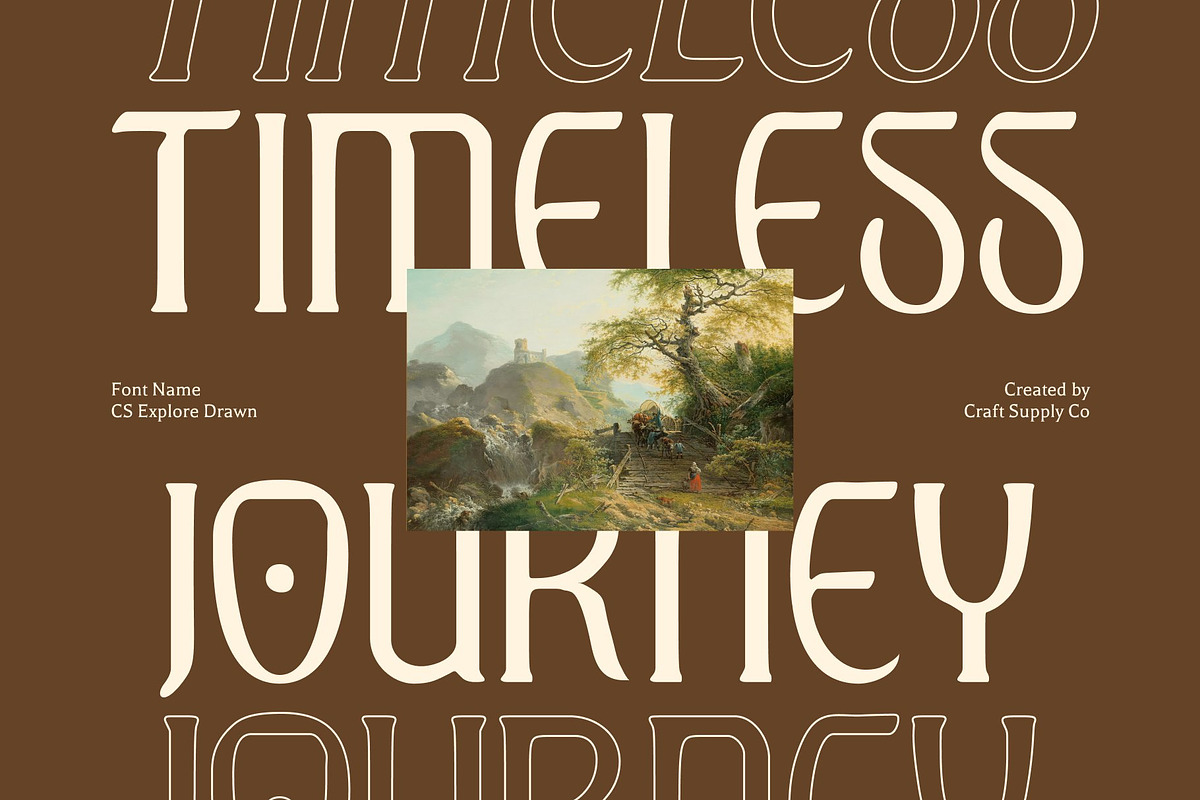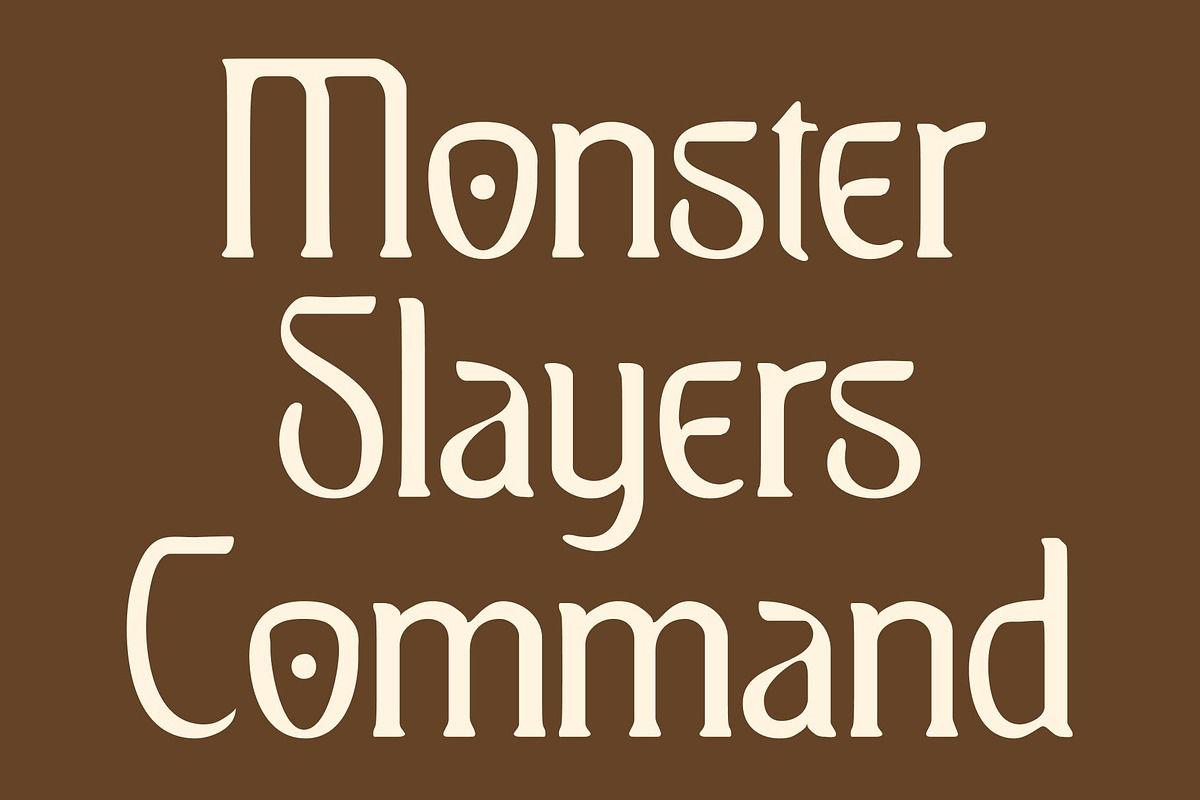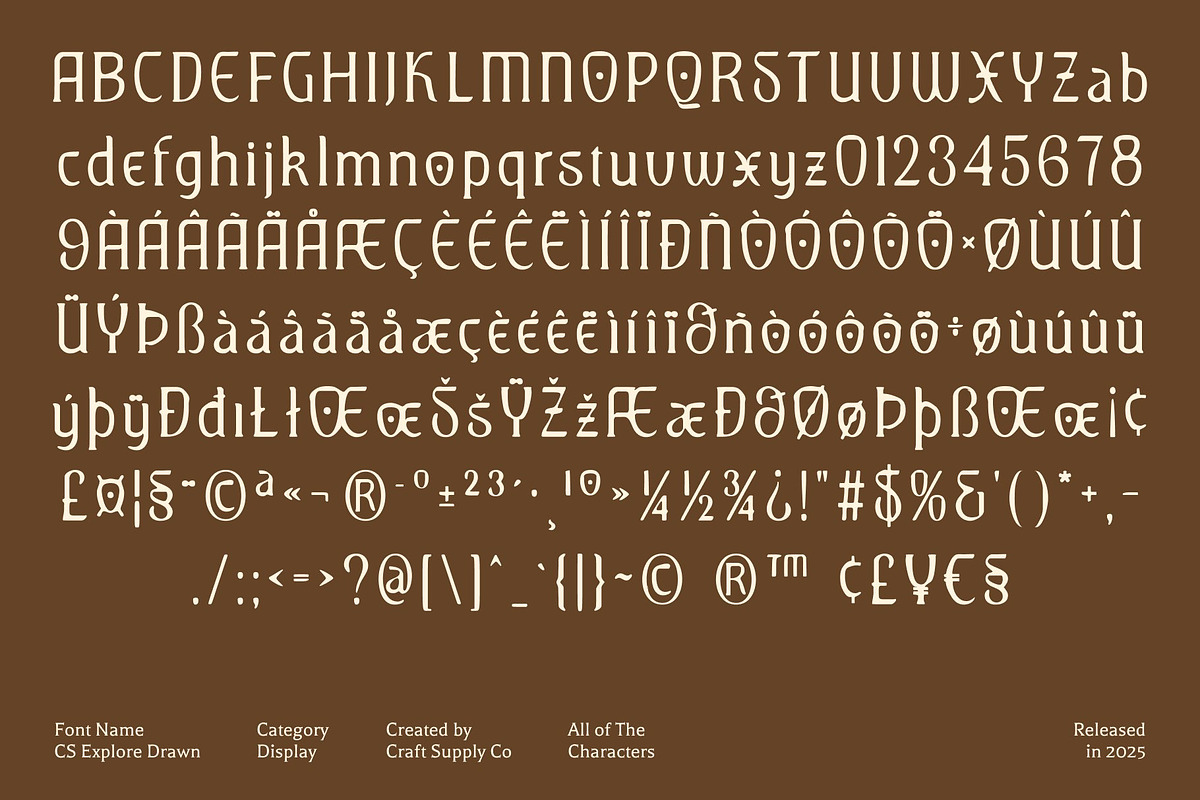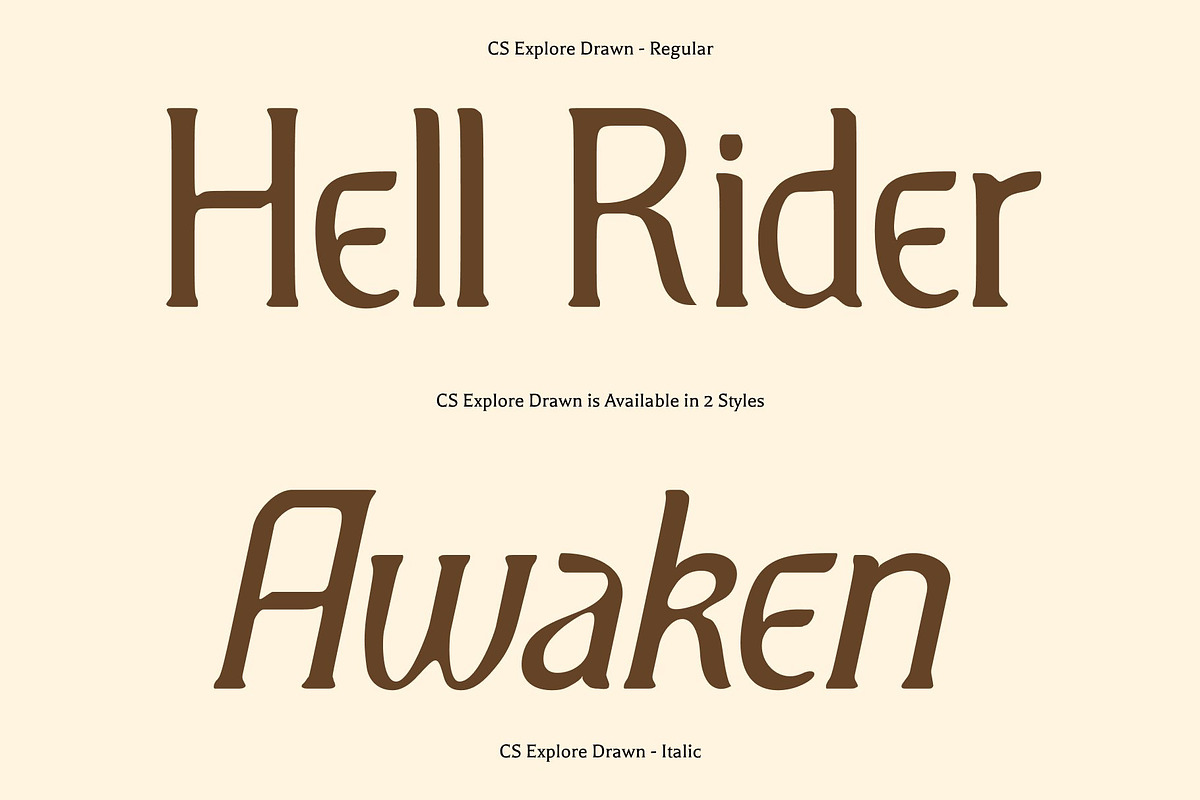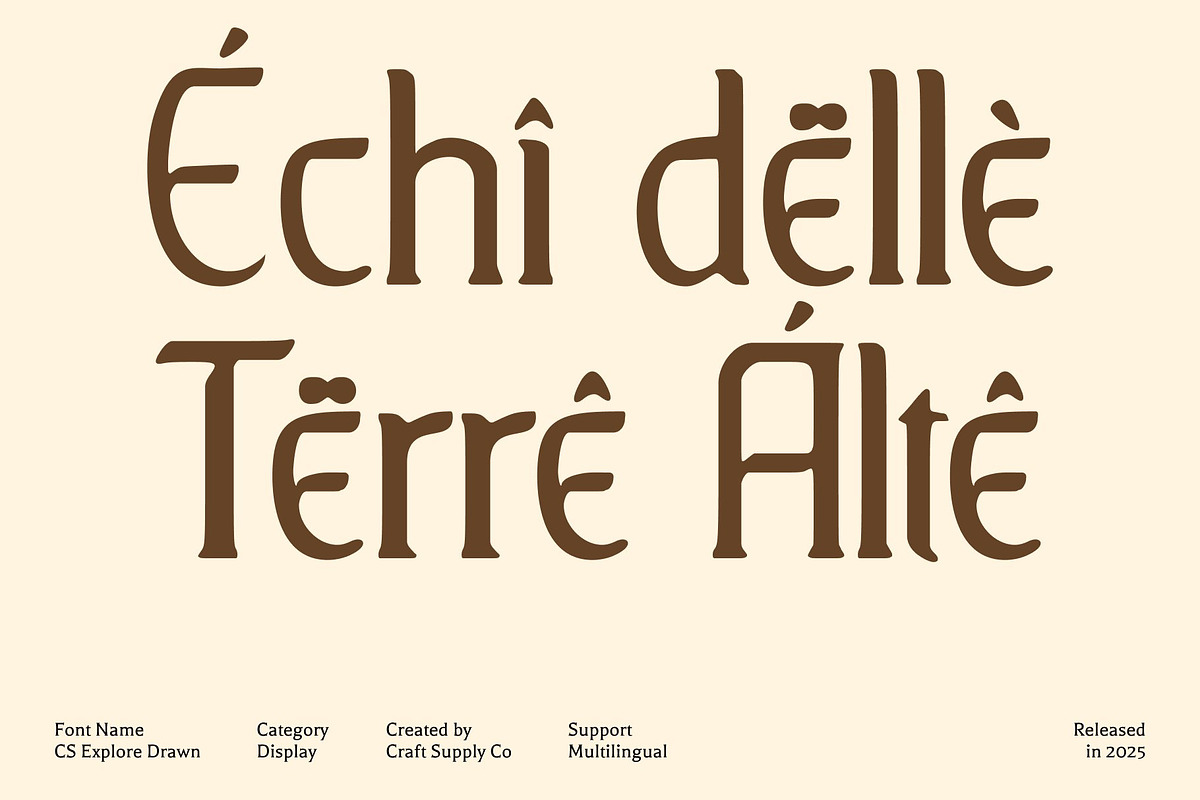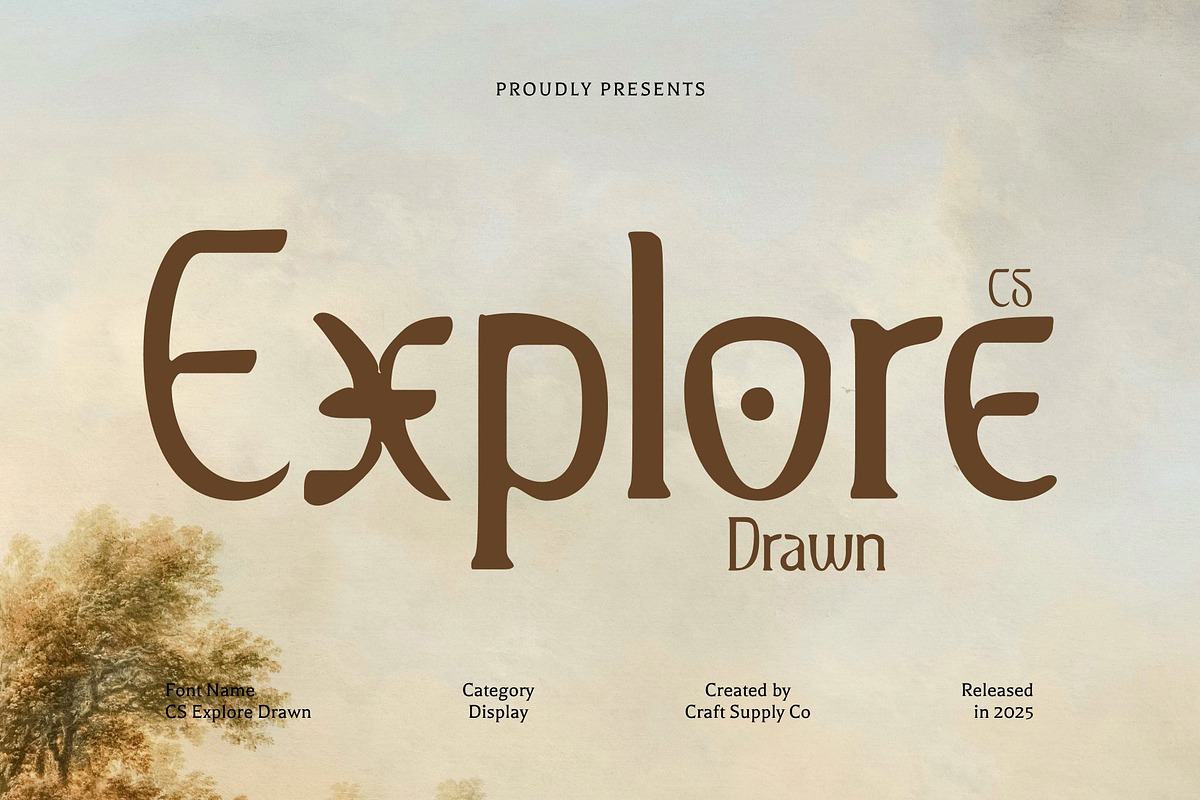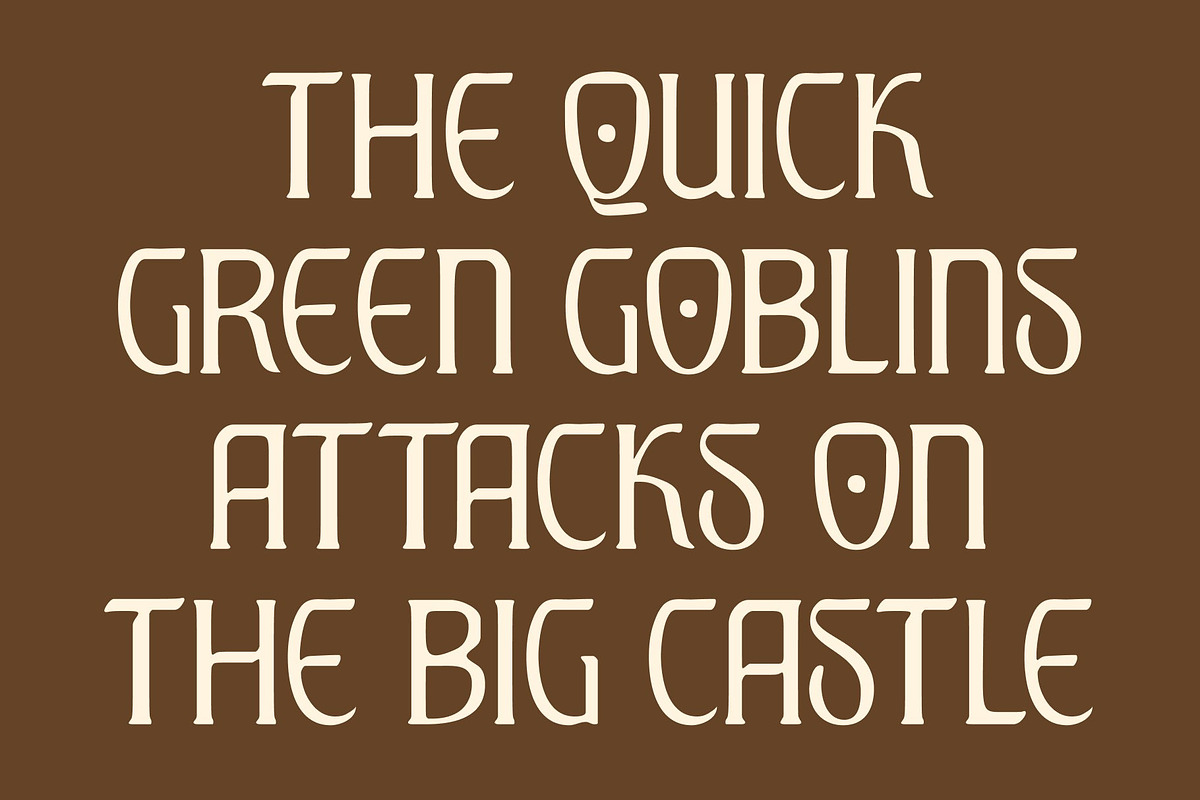
CS Explore Drawn
CS Explore Drawn – Decorative Modern Display Serif Font
Elegant Details for Refined Typography This is a modern display serif font that combines clean, contemporary letterforms with intricate decorative touches. Each character is designed with precision to exude sophistication, artistry, and a polished visual appeal, making it perfect for projects that demand elegance and attention to detail.
Where Classic Meets Contemporary Balancing traditional serif elegance with modern design innovation, blends sharp lines with fluid ornamental details. Its decorative accents add unique flair while maintaining clarity, ideal for high-end visual projects that require a distinctive yet readable typographic voice.
Versatile for Premium Creative Applications From luxury branding and fashion editorials to magazine layouts, invitations, and exclusive packaging, enhances any design with a sense of refinement. Its timeless yet modern structure allows for versatile use in projects that aim to impress and captivate.
Stand Out with Artistic Typography With a combination of decorative sophistication and modern execution, this font helps designers create striking compositions that convey elegance and innovation. Perfect for high-end projects, this font offers a polished, expressive, and unmistakably premium typographic voice.